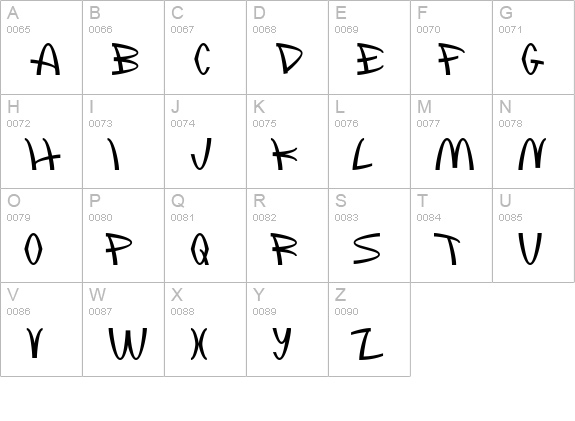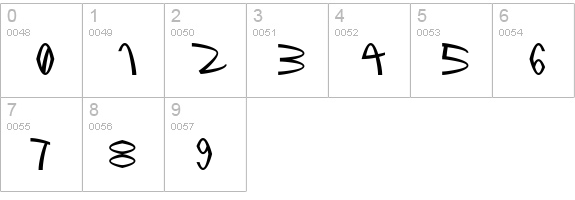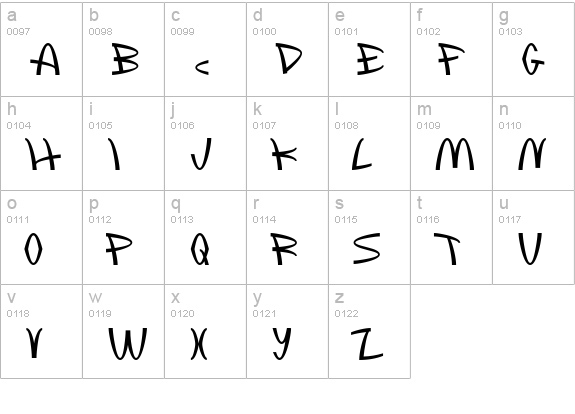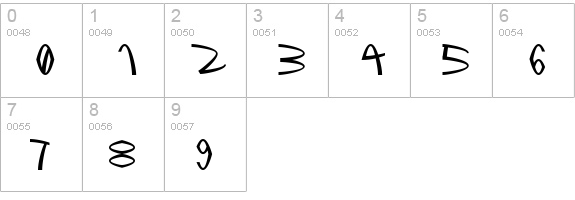
Introducing the McLawsuit font, a captivating typeface that effortlessly combines elegance and versatility. With its sleek lines and modern design, McLawsuit is the perfect choice for a wide range of creative projects, from branding and logo design to editorial layouts and web design. This font exudes a sense of sophistication, making it ideal for premium and luxury brands that seek to make a lasting impression. Its unique letterforms effortlessly blend traditional elements with contemporary flair, resulting in a truly eye-catching and memorable typography experience. The McLawsuit font boasts an extensive character set, including uppercase and lowercase letters, numerals, punctuation marks, and a variety of special characters. This abundance of options ensures that you have the flexibility to create visually stunning and dynamic designs that truly stand out. What sets McLawsuit font apart from the rest is not only its impeccable design but also its availability as a free download. That's right, this remarkable font can be freely accessed and downloaded at FontsMarket.com. Now, you can elevate your creative projects without breaking the bank, all thanks to the generosity of FontsMarket.com. Whether you're a professional designer, a small business owner, or simply an enthusiast seeking to enhance your visual creations, the McLawsuit font is a game-changer. Its versatility, elegance, and affordability make it a must-have in any designer's toolkit. So why wait? Experience the magic of the McLawsuit font for yourself by heading over to FontsMarket.com, where you can freely download this incredible typeface and unlock a world of creative possibilities. Elevate your designs, make a statement, and leave a lasting impression with the McLawsuit font.